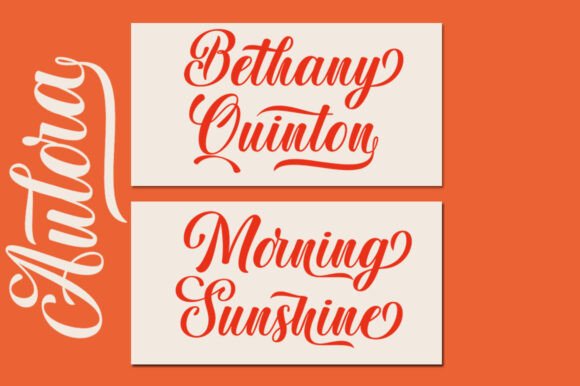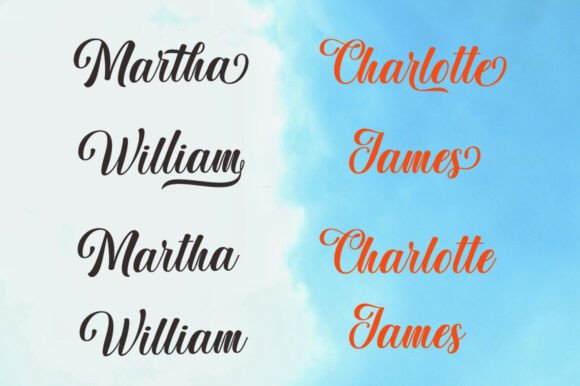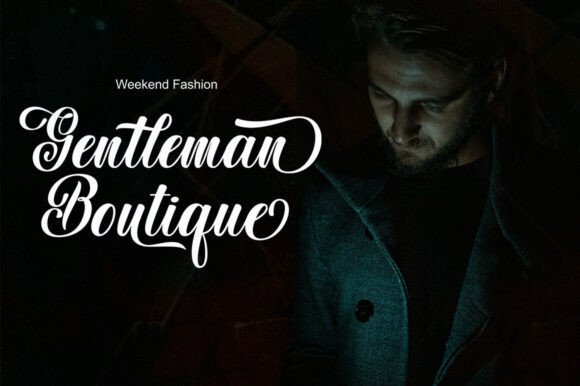
Aulora Script Font
About the Aulora Script Font
The Aulora Script Font is here to transform your projects with its distinctive character and style. Aulora Script is a calligraphy script font that comes with beautiful alternative characters. a mixture of copper calligraphy with handleting style. Designed to bring style elegance. Aulora Script attracts such a subtle, clean, feminine, sensual, glamorous, simple and very readable typeface. The classic style is perfect to apply in various formal forms such as invitations, labels, menus, Logos, fashion, make up, stationery, letterpress, romantic novels, magazines, books, greeting / wedding cards, packaging, labels.
Aulora Script Font Usage Examples
Aulora Script Font Example